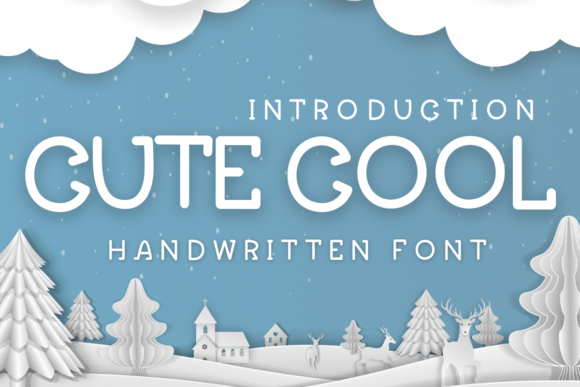
Cute Cool Font: The Perfect Handwritten Font for Creative Projects
In the world of typography, fonts play a crucial role in conveying the tone and personality of a message. When it comes to creating visually appealing and engaging content, choosing the right font is essential. One such font that has gained popularity among designers and writers is the Cute Cool Font. In this article, we’ll explore the features and uses of this adorable handwritten font, and how it can elevate your creative projects.
What is Cute Cool Font?
Cute Cool Font is a handwritten font designed to add a personal touch to your writing and designs. Its unique and quirky style makes it perfect for a variety of applications, from taking notes and writing diaries to creating greeting cards and social media posts.
Uses of Cute Cool Font
Cute Cool Font is a versatile font that can be used for a wide range of projects, including:
- Note-taking and journaling: Add a personal touch to your notes and diary entries with Cute Cool Font.
- Greeting cards and invitations: Create beautiful and unique greeting cards and invitations for special occasions.
- Banners and posters: Use Cute Cool Font to create eye-catching banners and posters for events, promotions, or announcements.
- Social media posts: Add a touch of personality to your social media posts and make them stand out from the crowd.
- Mugs, cards, and stationery: Create customized mugs, cards, and stationery with Cute Cool Font for a unique and thoughtful gift.
- T-shirts and apparel: Design customized t-shirts and apparel with Cute Cool Font for a fun and stylish look.
Benefits of Using Cute Cool Font
Using Cute Cool Font offers several benefits, including:
- Personal touch: Cute Cool Font adds a personal touch to your writing and designs, making them more relatable and engaging.
- Unique style: The font’s unique and quirky style sets it apart from other fonts, making your designs stand out.
- Versatility: Cute Cool Font can be used for a wide range of projects, from digital to print.
- Easy to read: Despite its playful style, Cute Cool Font is easy to read, making it perfect for body text and captions.
Tips for Using Cute Cool Font
Here are some tips for using Cute Cool Font effectively:
- Use it for headings and titles: Cute Cool Font is perfect for headings and titles, adding a touch of personality to your designs.
- Mix it with other fonts: Combine Cute Cool Font with other fonts to create a unique and visually appealing design.
- Experiment with colors: Cute Cool Font looks great in a variety of colors, so don’t be afraid to experiment and find the perfect hue for your design.
- Keep it simple: Don’t overdo it – keep your design simple and clean to let Cute Cool Font shine.
In conclusion, Cute Cool Font is a versatile and charming handwritten font that can add a personal touch to your writing and designs. With its unique style and ease of use, it’s perfect for a wide range of projects, from note-taking and journaling to creating greeting cards and social media posts. By following the tips outlined in this article, you can make the most of Cute Cool Font and take your designs to the next level.